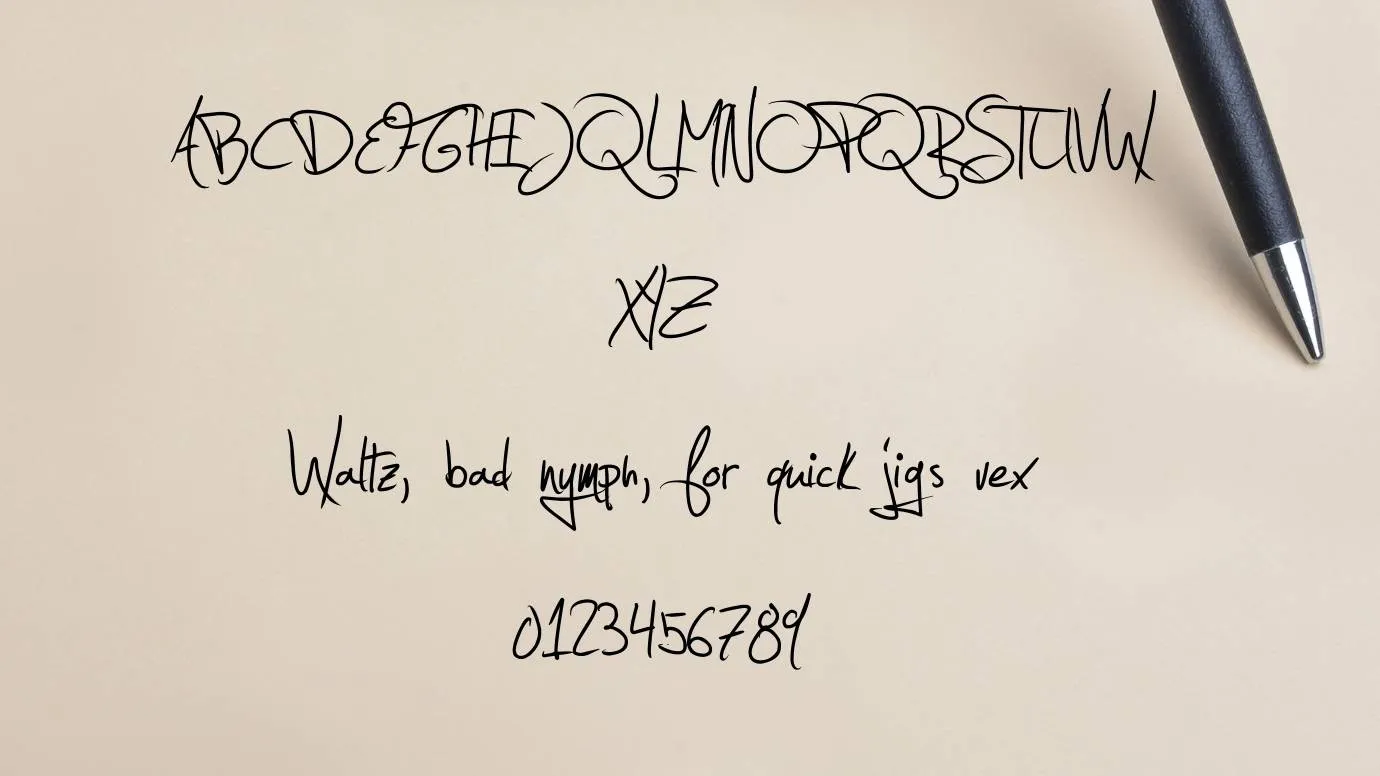
Jellyka Estrya’s Handwriting Font is a cool member of the Script font family. It mimics real handwriting with its stylish design. It’s part of a collection of over eight thousand free fonts, both premium and dingbats. The regular texture of this font gives it a unique and remarkable appearance, similar to the Jenna Sue Font. If you love stylish fonts that look like handwriting, this one is definitely worth checking out.
This is a smooth and simple design of eye attractive and easily readable texture for everyone, and that is the point behind which make this typeface famous in the top order companies and designers. Moreover, the subfamily of this texture is regular.
As this typeface is designed as handwriting style, therefore it is a great choice for Art designs of all sizes. This is an outstanding typeface for graphics designing and logo designing which is used in Adobe Photoshop and CorelDraw.
It has a stunning texture for writing over T-shirts, jackets, and Background Images. This typeface is amazing for motion graphics as well as for covers and titles. you can also use this texture for gift packing, party cards, and homewares.
Designer of Jellyka Estrya’s Handwriting Font
This stylish handwritten type of typeface is designed by Jellyka Nerevan. one of the great and famous graphics designers.
This is a single regular style of typeface, which includes upper letters, small letters, glyphs, numerals, punctuations, and all characters with a wide range of language supports.
View of Jellyka Estrya’s Handwriting Font
| Name | Jellyka Estrya’s Handwriting Font |
| Designer | Jellyka Nerevan |
What is Jellyka Estrya’s Handwriting Font?
This is a modern group member of the Script family. The Style of this font is as real as handwriting.
What is a similar font to Jellyka Estrya’s Handwriting Font?
This is a great typeface that has been handwritten and there are so many similar fonts but, the most similar font is Atatrk font.
Who designed Jellyka Estrya’s Handwriting Font?
This wonderfully unique art style of typeface has designed by Jellyka Nerevan one of the famous graphics designers.